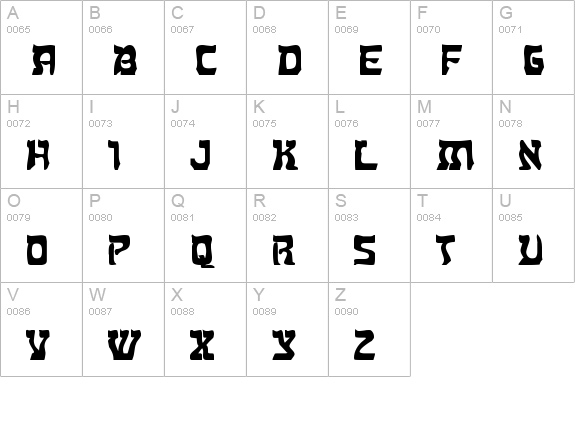
Kosher Extended Bold is a strong, high-contrast, extended-width variant in the Kosher typeface family \xE2\x80\x94 well suited to headlines, attention-grabbing titles, and strong calls-to-action.
Kosher Extended Bold font is a stunning display typeface that exudes modernity and sophistication. With its bold and distinctive letterforms, this font is perfect for making a strong statement in your design projects. The extended character set offers versatility and allows for creative typography layouts. What sets Kosher Extended Bold font apart is its adherence to kosher design principles, ensuring that it meets the highest standards of quality and authenticity. Whether you're designing a logo, poster, or website, this font will bring a touch of elegance and professionalism to your work. Best of all, Kosher Extended Bold font is available for free download at FontsMarket.com. So go ahead and enhance your designs with this beautiful and impactful typeface today!